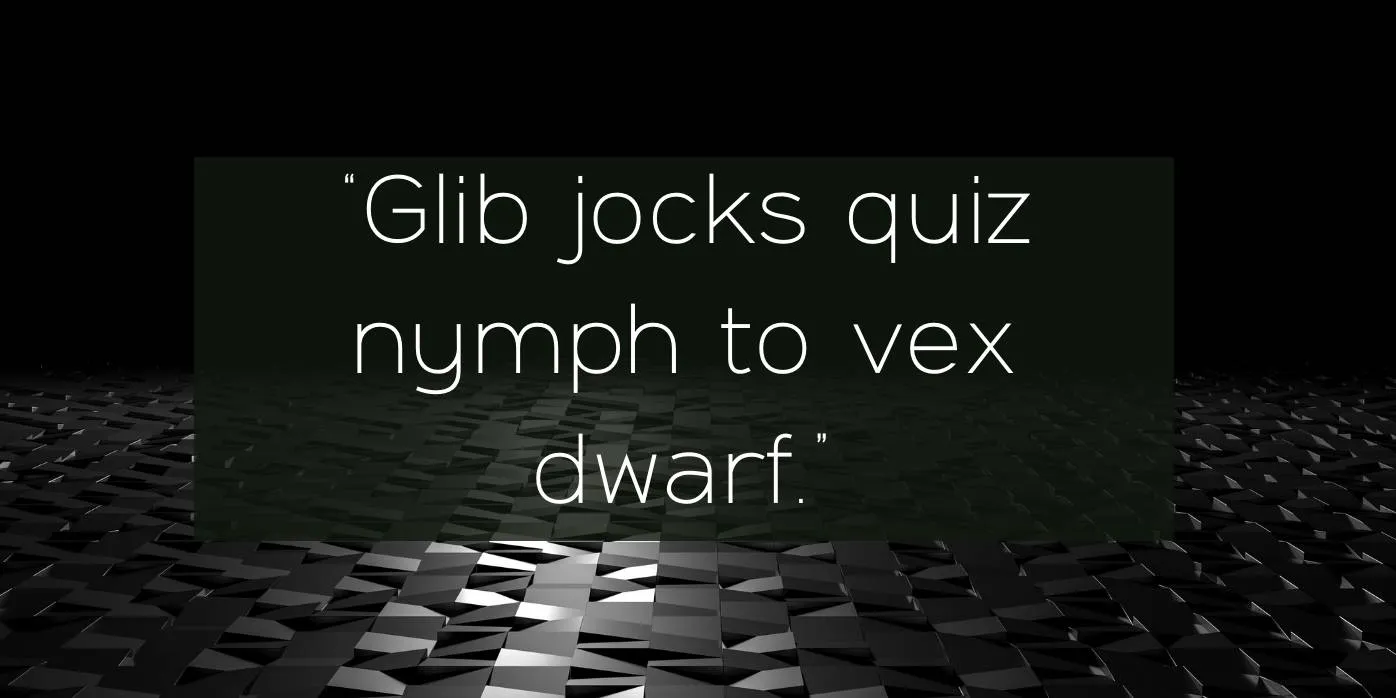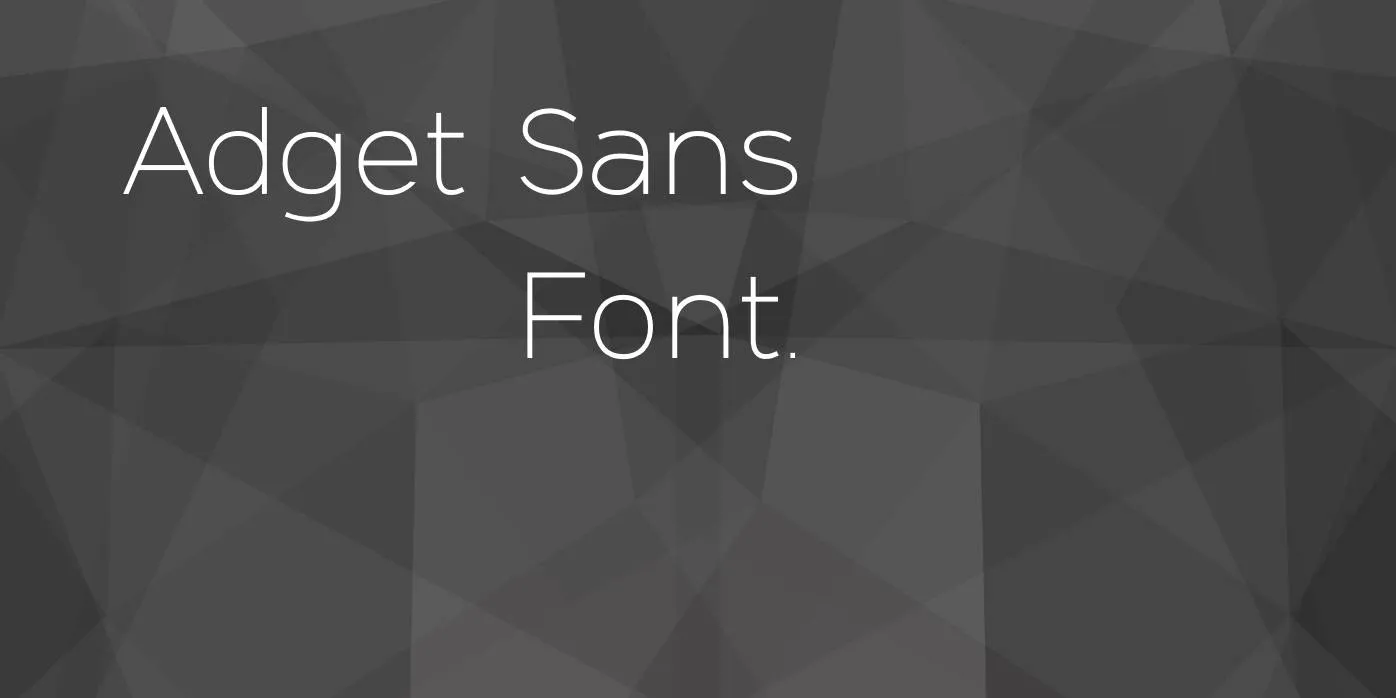
Adget Sans Font
Today we are presenting a new awesome and modern font that was known by the name Adget Sans Font. This attractive font family was designed by a very popular and famous designer Adam Greasley . This stylish typeface was released for the first time in the year 2014. This typeface belongs to the Sans-serif font family.
This tremendous font was designed and polished in a very popular Wearecolt Foundry. This classy font is available in 11 common and unique styles and also contains various special weights. These common weights make your designs more attractive and soft-looking. Some famous weights are Bold, Thin, Light, and others.
Audrey Font is the most commonly used alternative to this stylish typeface. This classic font family is available in a great number of amazing characters. There are a few popular characters that are given uppercase, lowercase, numerals, icon, and so on. These classy fonts are more suitable for giving titles to websites.